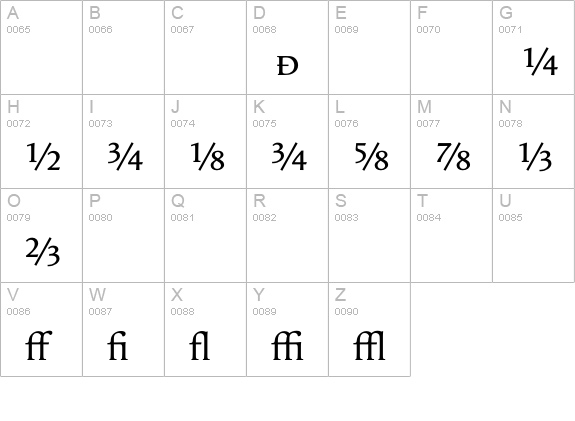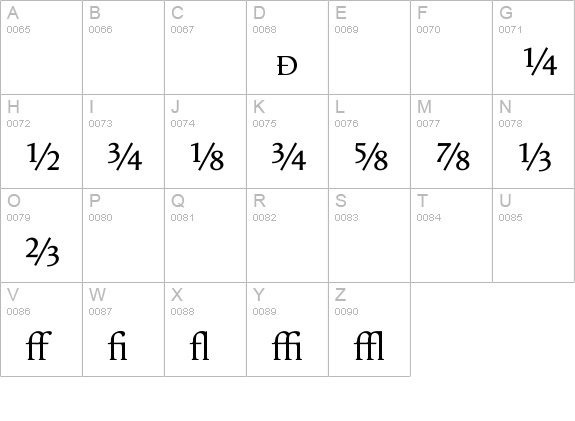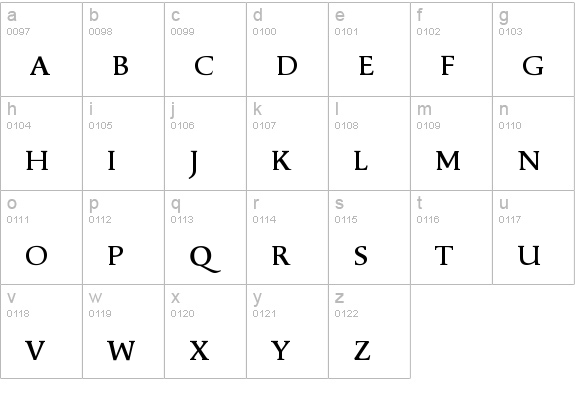
ApollineExp-Regular Font Details
ApollineExp-Regular is the standard, neutral variant in the ApollineExp typeface family \xE2\x80\x94 well suited to general body text, paragraphs, and standard typographic work.
ApollineExp-Regular is a modern and elegant font, exuding sophistication and style. With its sleek lines and balanced proportions, this typeface is perfect for adding a touch of refinement to any project. The versatile design of ApollineExp-Regular makes it suitable for a wide range of applications, from branding to editorial design. What sets ApollineExp-Regular apart is that it is not only visually appealing but also free to download. That's right, you can get your hands on this exquisite font without spending a penny! Simply head over to FontsMarket.com to access this beautiful typeface and elevate your designs with its timeless charm. Don't miss out on the opportunity to enhance your projects with ApollineExp-Regular, the free font that combines elegance and accessibility in one package.